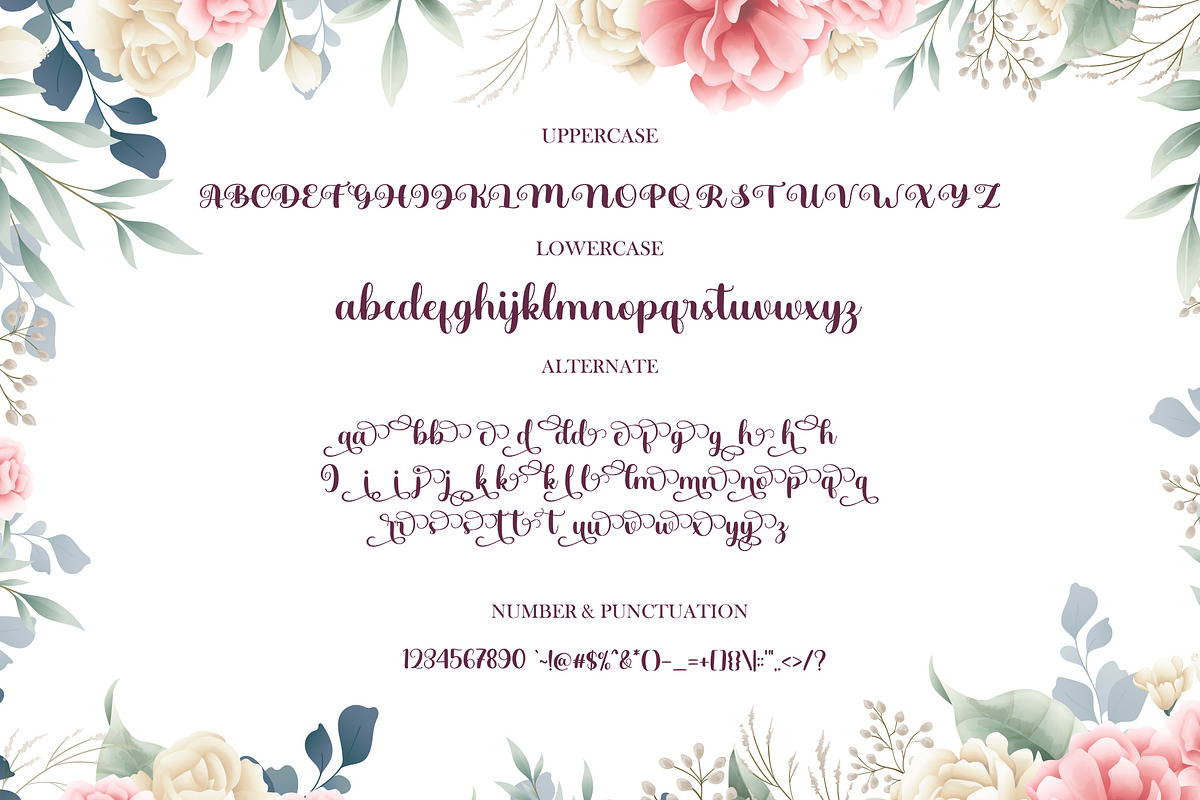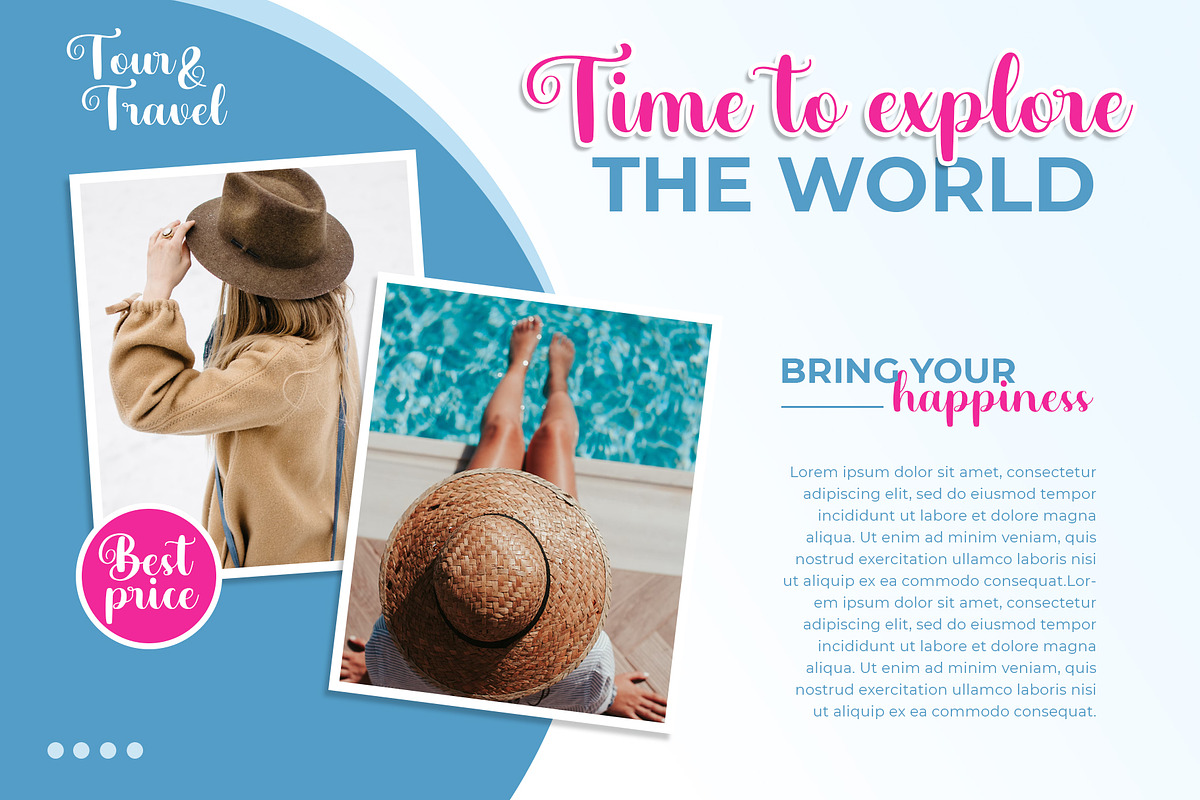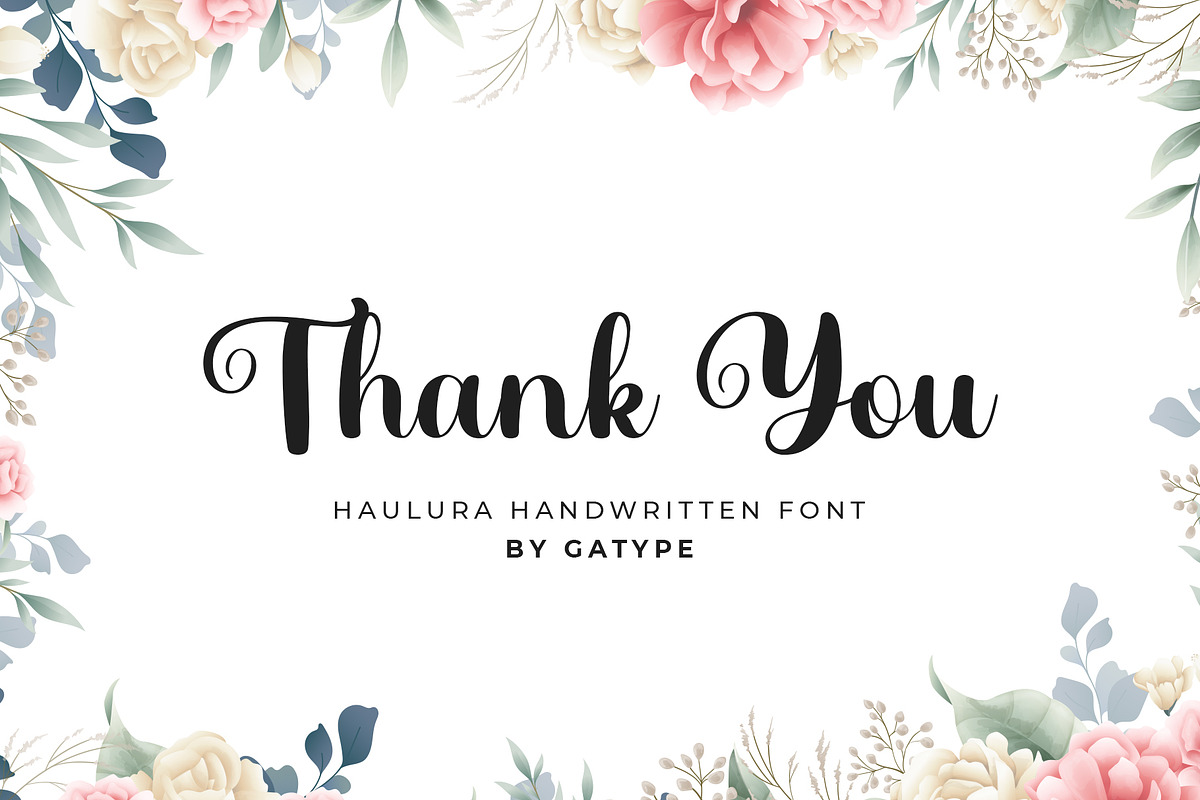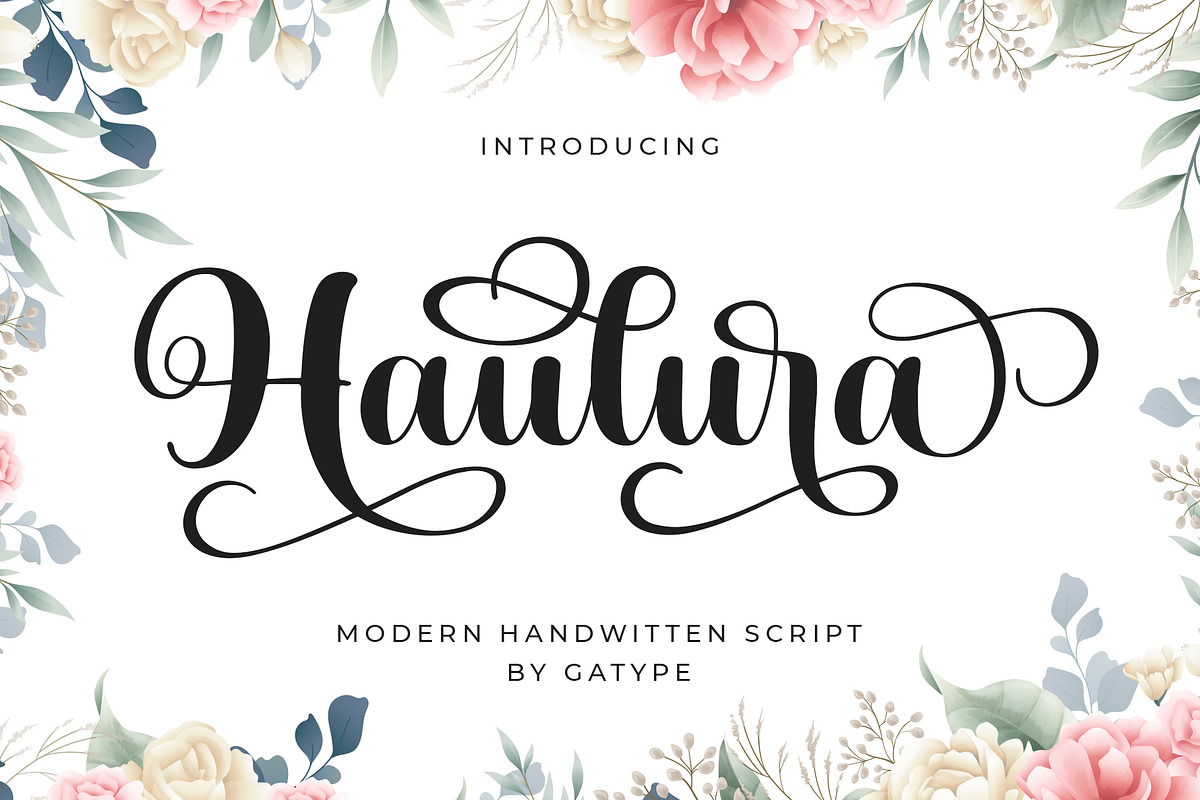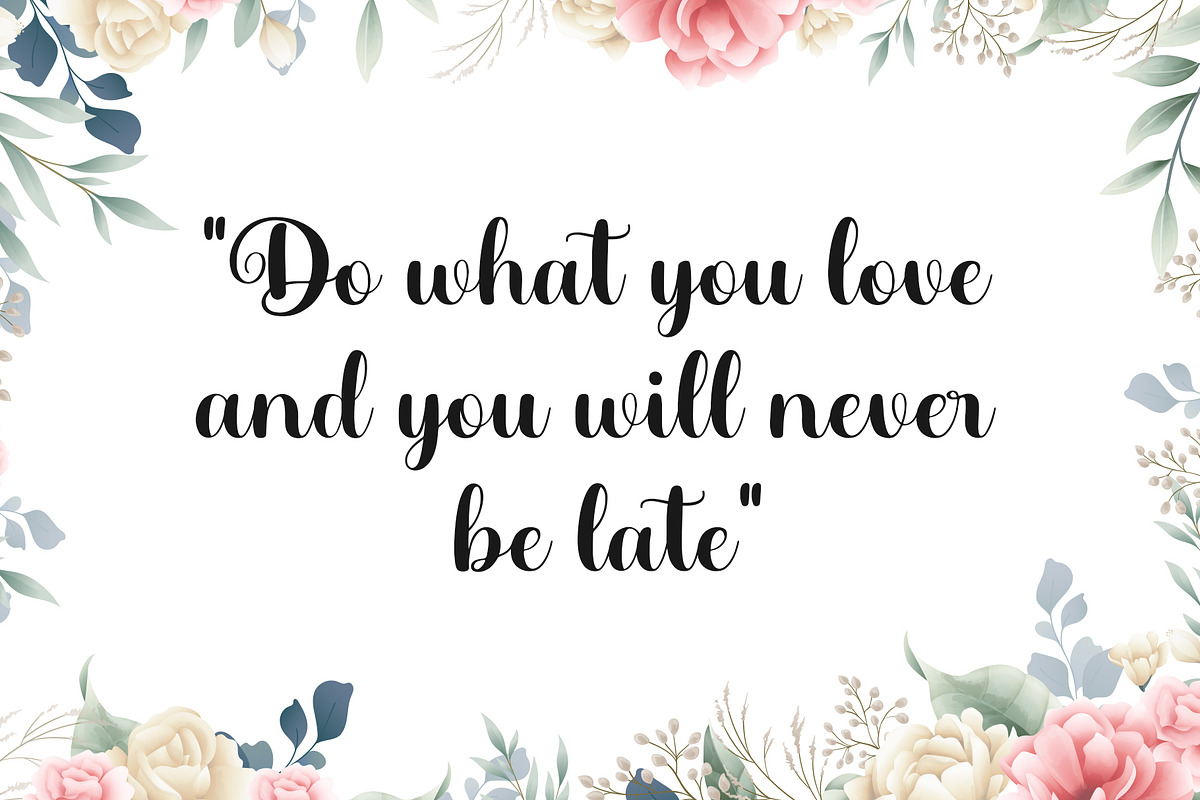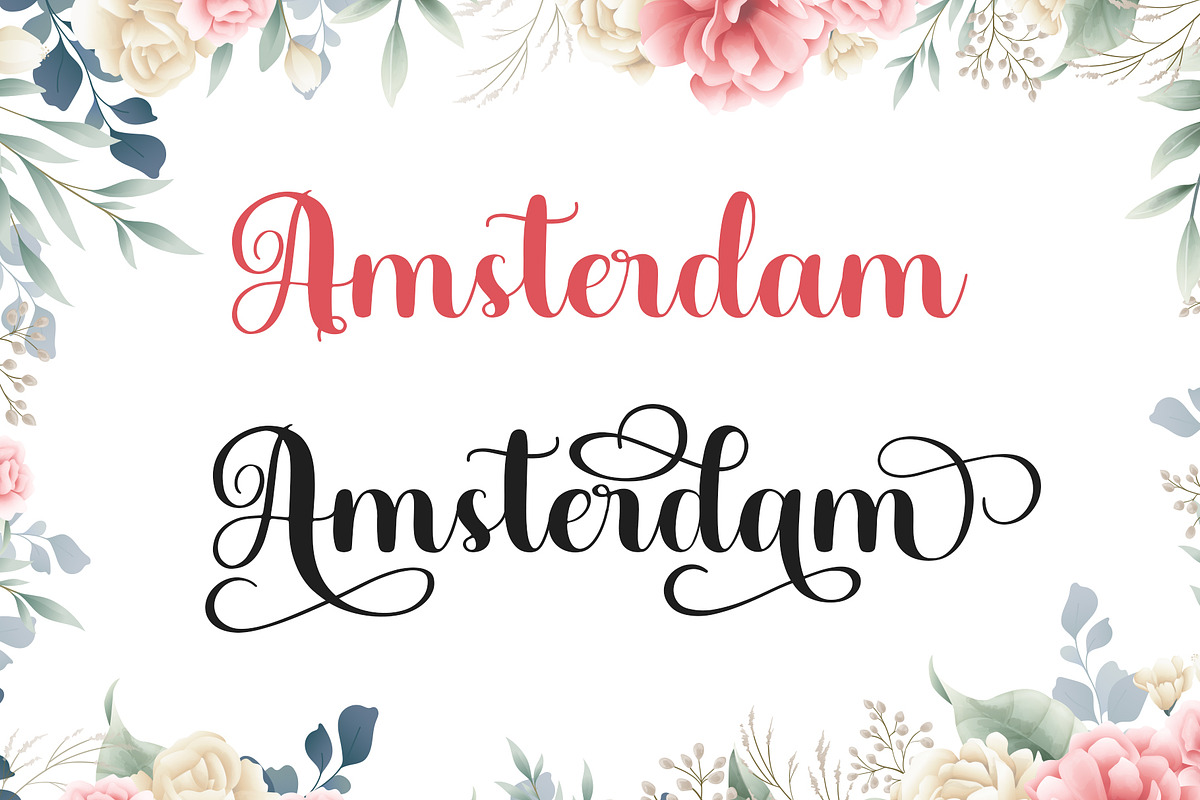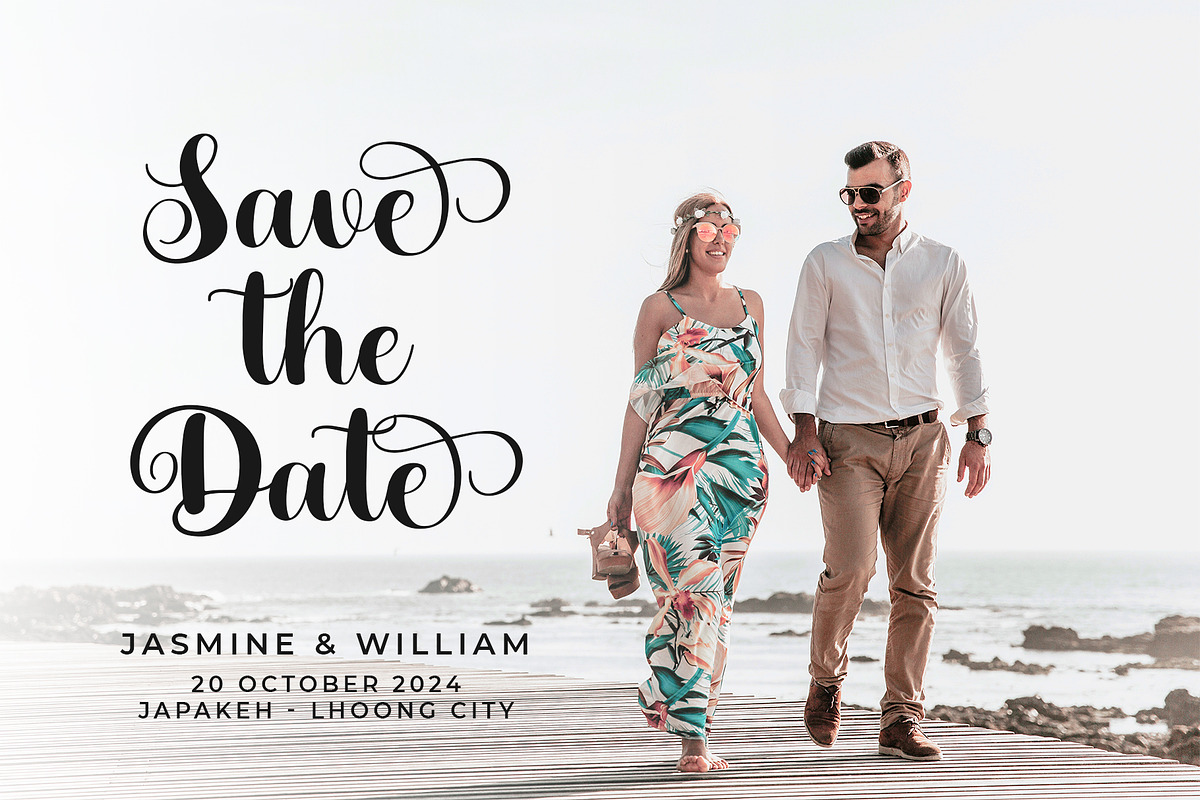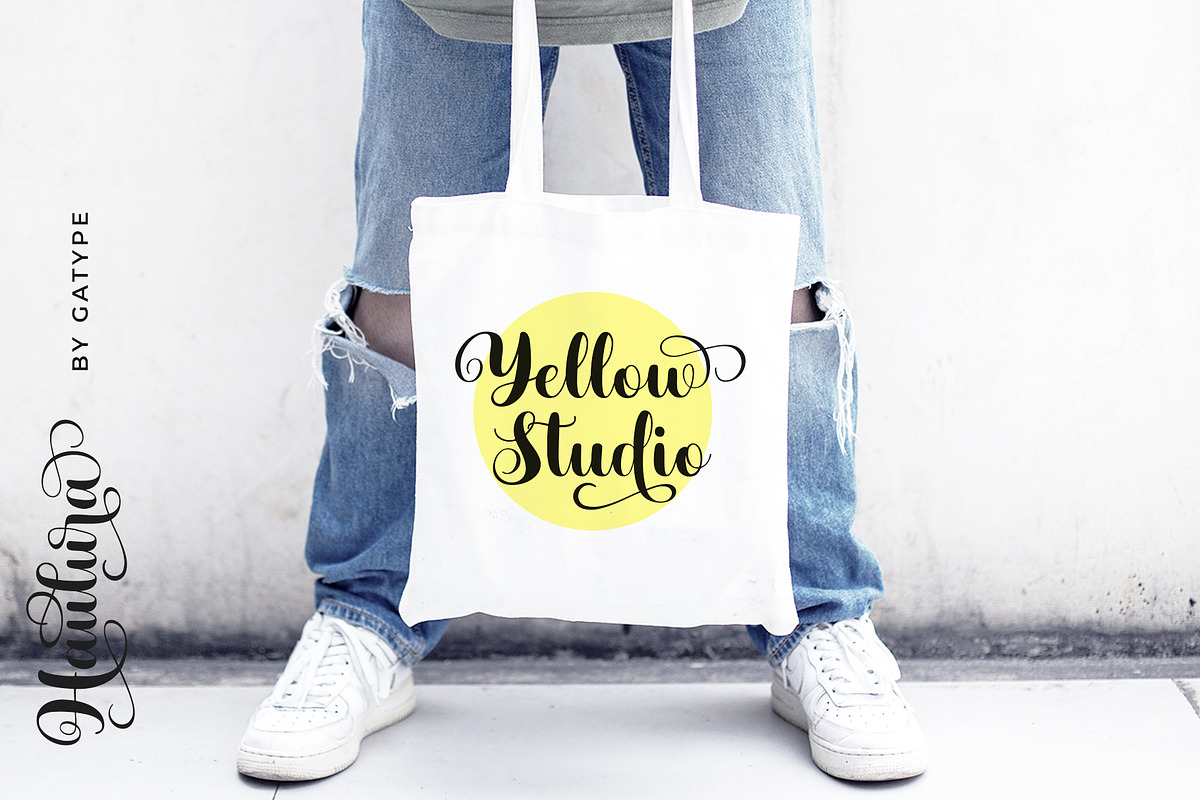
Haulura
Haulura is a modern calligraphy font. This font is casual and pretty with a stroke. Can be used for various purposes. such as logos, product packaging, wedding invitations, branding, headlines, signage, labels, signatures, book covers, posters, quotes and others.
Haulura Script featuring OpenType style alternatives, ligatures, and International support for most Western Languages is included. To enable the OpenType Stylistic alternative, you need a program that supports OpenType features such as Adobe Illustrator CS, Adobe Indesign & CorelDraw X6-X7, Microsoft Word 2010 or a later version.